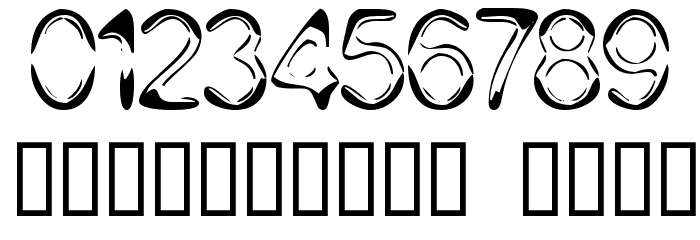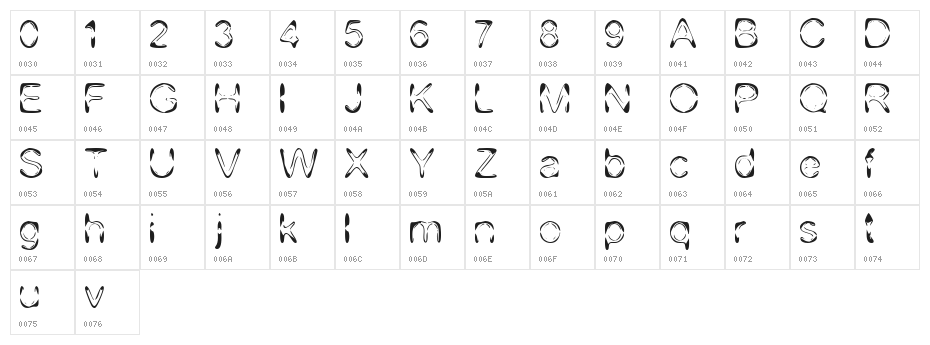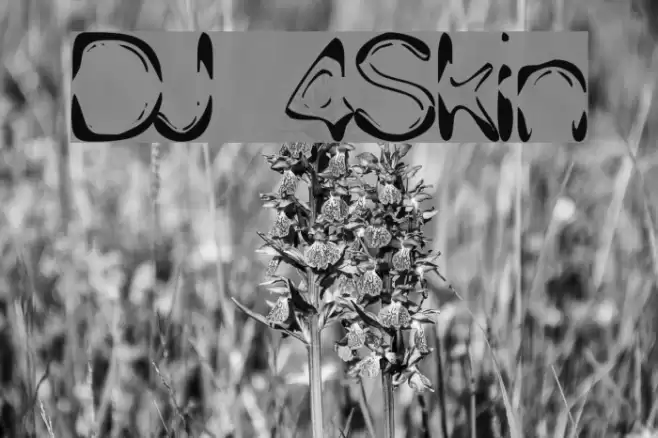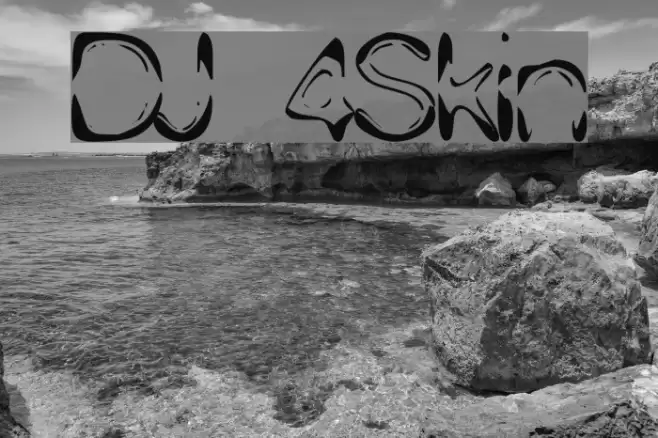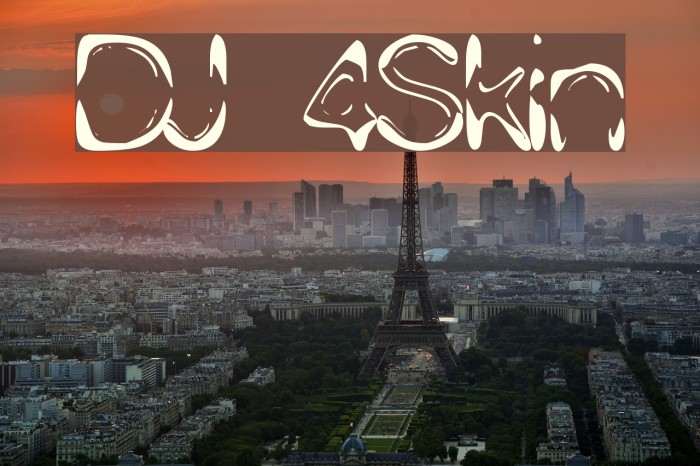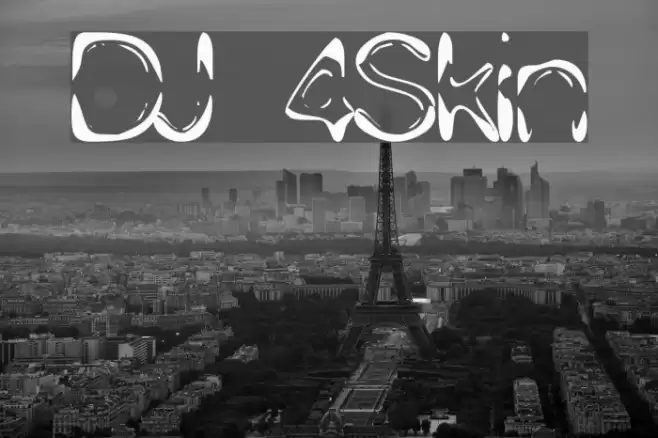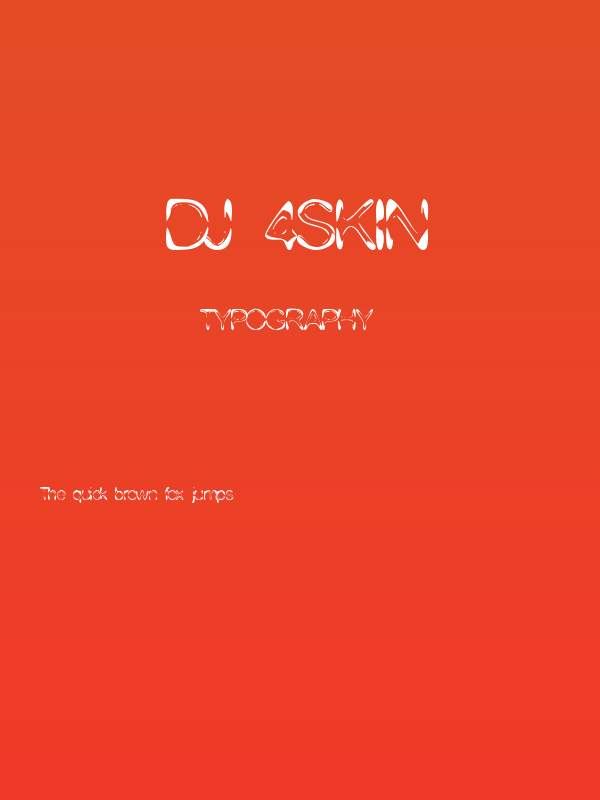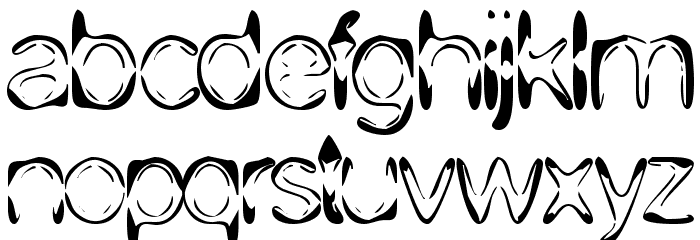
DJ 4Skin Font
DJ 4Skin Description
This font features a unique and artistic design with a liquid-like, flowing appearance. The characters have a bold and dynamic presence, with irregular shapes and varying stroke thicknesses that create a sense of movement and energy. The uppercase and lowercase letters maintain a consistent style, while the numbers and special characters blend seamlessly into the overall aesthetic. This font's distinctive look makes it ideal for creative projects that require a standout visual element.